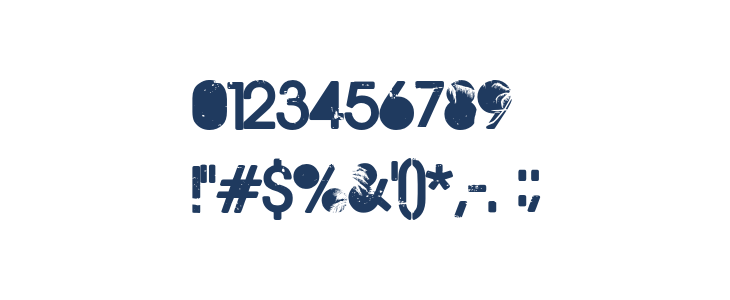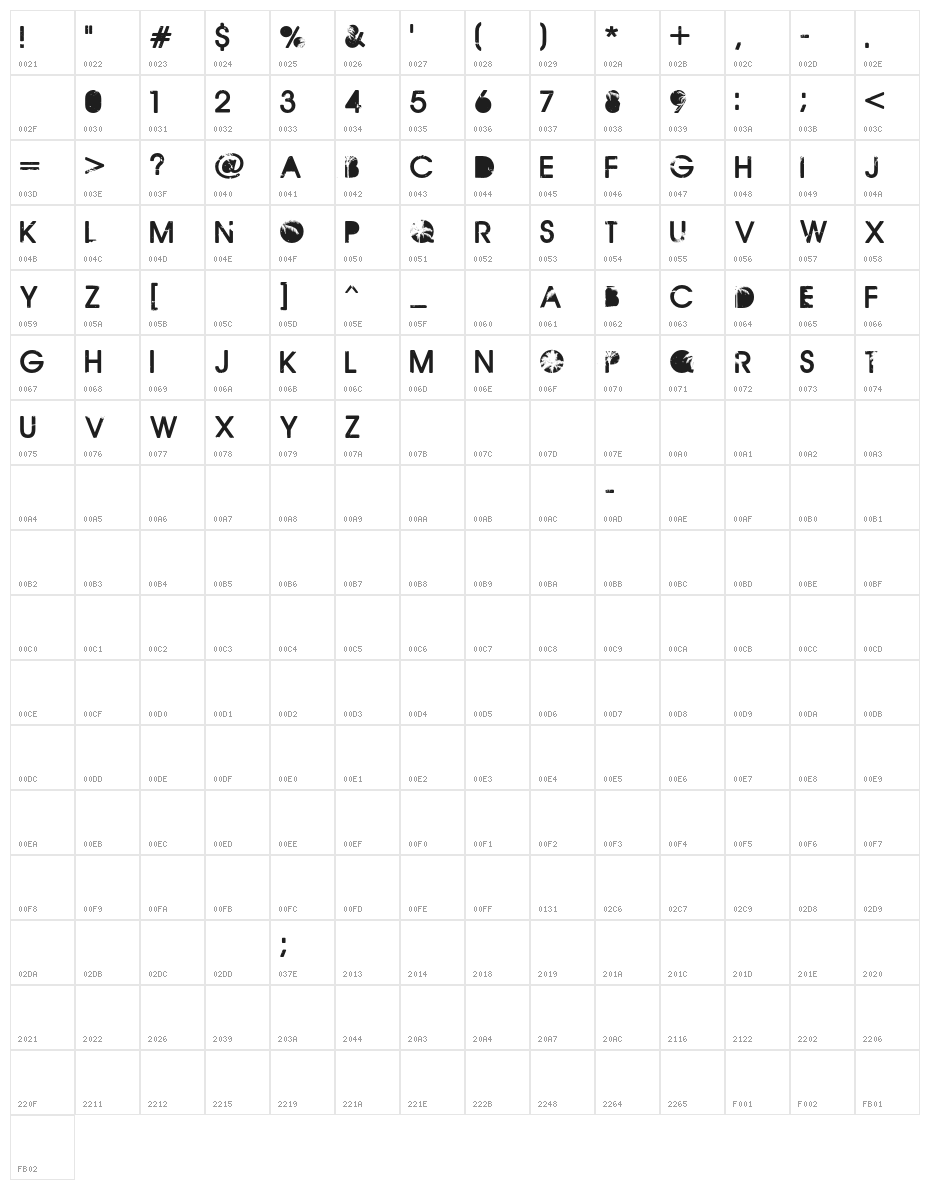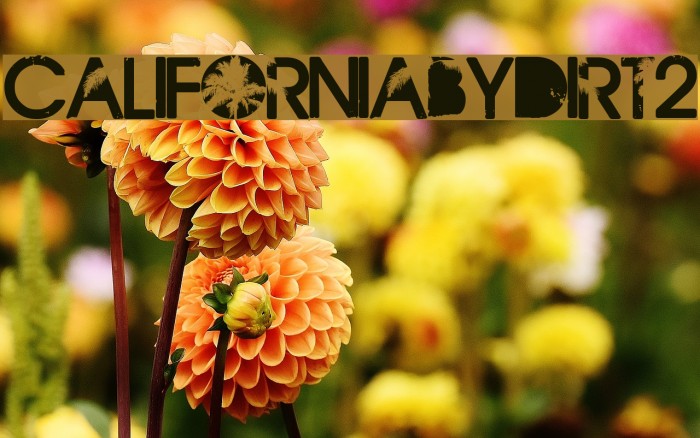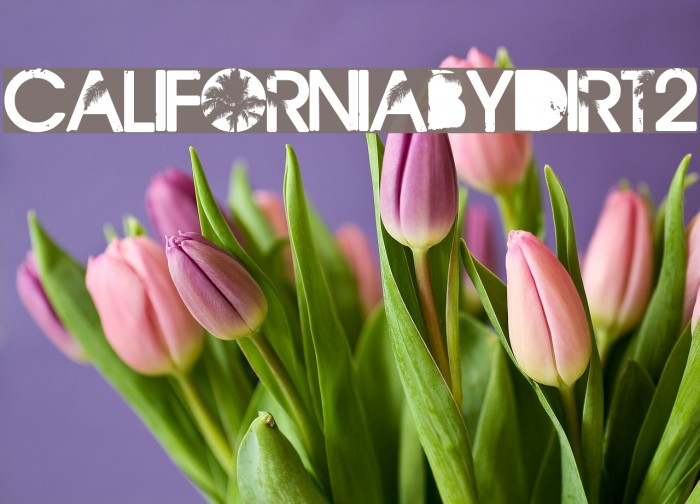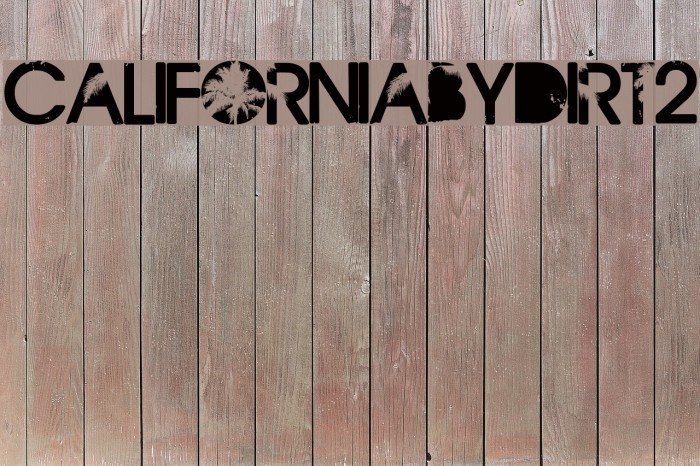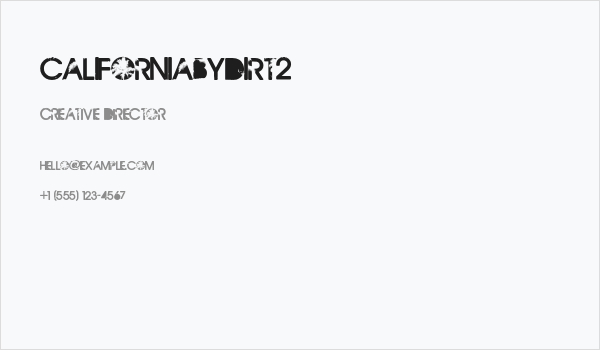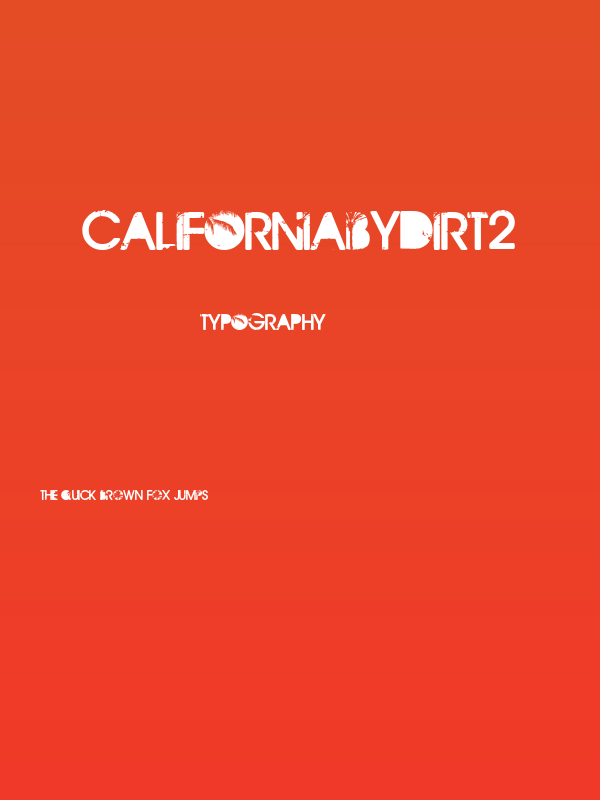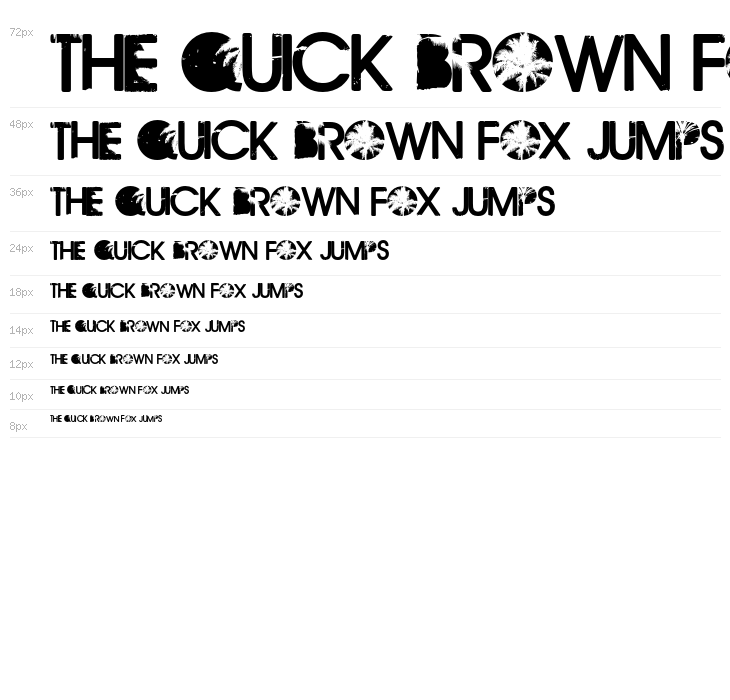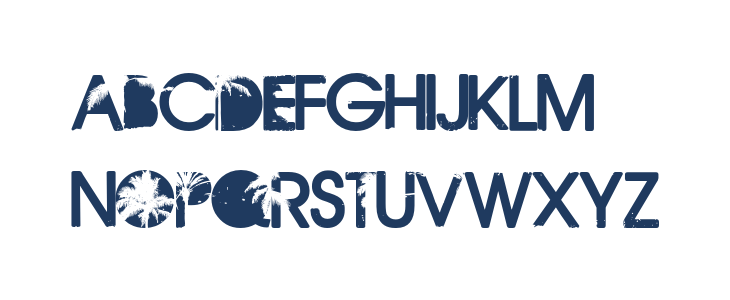
CaliforniabyDirt2 Font
CaliforniabyDirt2 Description
This font features a bold, distressed style with a grunge aesthetic. The characters are uppercase and lowercase letters, numbers, and special symbols, each with a unique, worn texture that gives the appearance of weathered paint or eroded surfaces. The design incorporates irregularities and rough edges, adding a dynamic and edgy feel. The font's boldness and high contrast make it stand out, while the distressed elements provide a sense of depth and character. It's ideal for projects that require a rugged, urban look.
| Overall Style | Grunge, Urban, Edgy |
| Use Case | Headlines, Posters, Branding |
| Proposed Projects | Perfect for album covers, posters, urban-themed designs, and branding that requires a gritty, edgy look. |